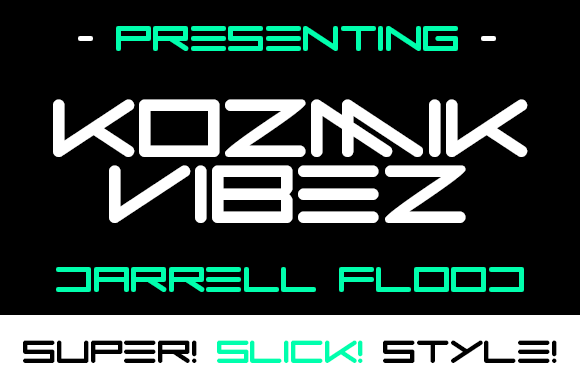
Introduction to Kozmik Vibez Font
As a designer, you’ve probably experienced that moment when a single font can elevate your entire creative project. You’re staring at a blank canvas, and suddenly, the perfect typography strikes. For some, it’s a sleek sans-serif; for others, a bold script. For those who crave the futuristic, there’s one font that stands out – the Kozmik Vibez Font.
This remarkably bold display font is not just a pretty face; it’s a game-changer for designers who want to make a statement. With its robotic influences and almost geometrical vibes, Kozmik Vibez Font is perfect for sci-fi movie covers, adventure park themes, space activities, and other similar projects that demand high-quality design resources. Whether you’re working on a free download or a paid project, this font is sure to add a touch of sophistication and creativity to your work.
Key Features of Kozmik Vibez Font
- Unique, high-quality design ideal for creative projects and artistic expressions.
- Features a transparent background, allowing for seamless integration with backgrounds and other design elements.
- Includes a range of glyphs and characters, making it suitable for a variety of creative projects, from logos to typography-based art.
- Designed at a high resolution (300 DPI) for crisp, clear display on various mediums, from print to digital.
- Perfect for adding a touch of cosmic and futuristic vibes to any design, from music festivals to sci-fi themed projects.
Honest Review: Kozmik Vibez Font
I recently came across the Kozmik Vibez Font, and I must say it’s an interesting addition to my design resources. As a designer, I appreciate high-quality fonts that can elevate a creative project.
What works well about this font is its unique and quirky style, which can add a touch of personality to any design. The font’s bold and playful feel makes it perfect for eye-catching headings and titles. I also appreciate that it’s available for free download, which is always a plus in my book.
- ✨ Unique and quirky style
- ✨ Perfect for eye-catching headings and titles
However, I do have a few limitations with this font. The transparent background can sometimes make it difficult to read, especially in low-light conditions. Additionally, the font’s complexity can make it challenging to pair with other fonts.
- ⚠️ Transparent background can be difficult to read in low-light conditions
- ⚠️ Can be challenging to pair with other fonts due to its complexity
Overall, the Kozmik Vibez Font is a solid addition to any designer’s toolkit. While it may have some limitations, its unique style and free download make it a great resource for creative projects.
The Kozmik Vibez Font is a high-quality design resource perfect for creative projects. It features a unique and eye-catching style that can add a touch of personality to your designs. You can download the font for free and use it in a variety of applications, including Canva, Adobe Photoshop/Illustrator, and PowerPoint/Word.
Tips for Getting the Most Out of Kozmik Vibez Font
To get the most out of the Kozmik Vibez Font, use it on a transparent background to really make the font stand out. You can also experiment with different font sizes and colors to create a unique look.
The Kozmik Vibez Font is perfect for a variety of creative projects, including logos, social media graphics, and marketing materials. Its unique style and high-quality design make it a great choice for anyone looking to add a touch of personality to their designs.